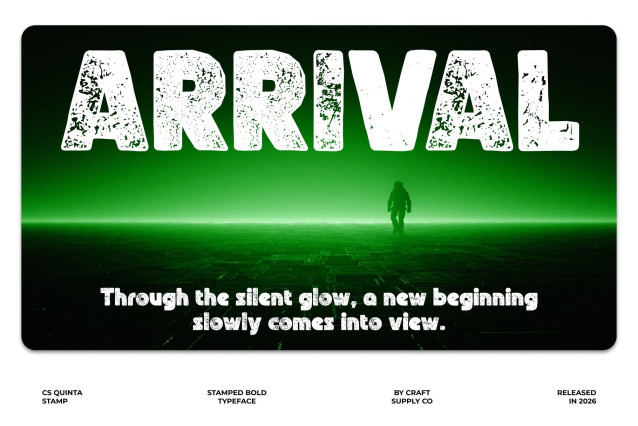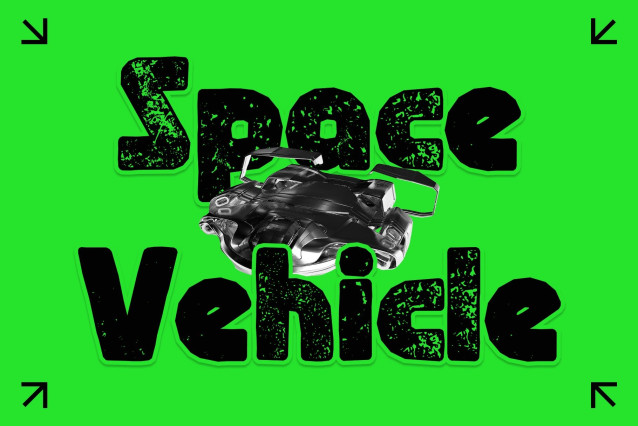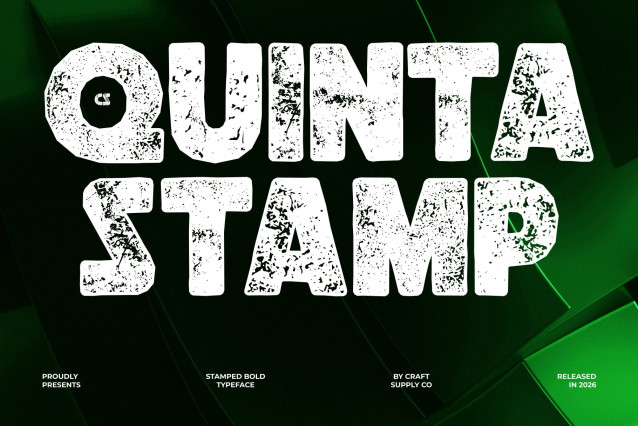
CS Quinta Stamp – Bold Modern Sans Serif Font: Where Futuristic Power Meets Vintage Grit
Strong Geometric Forms with Techno-Inspired Style
This is a bold sans serif display font designed with strong geometric forms and a futuristic techno-inspired aesthetic. Its sharp structure and solid proportions create a commanding visual presence that feels modern, energetic, and highly impactful. Combined with a subtle funky edge, the font delivers a unique personality that is both industrial and expressive.
Futuristic Design with Rugged Character
This font offers a typographic voice that feels innovative, urgent, and authentic. The clean techno-inspired forms create a modern digital atmosphere, while the bold weight enhances visibility and visual strength across large-scale compositions.